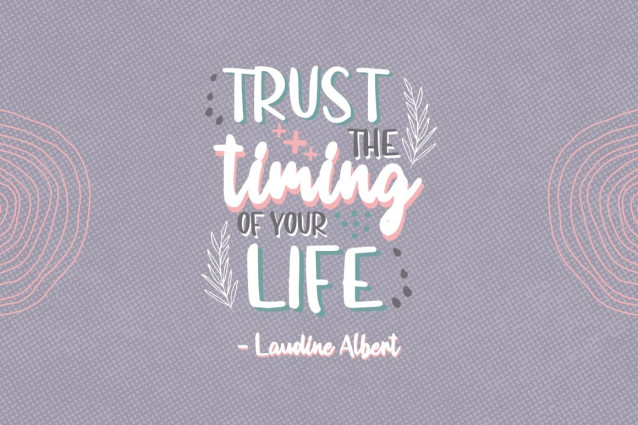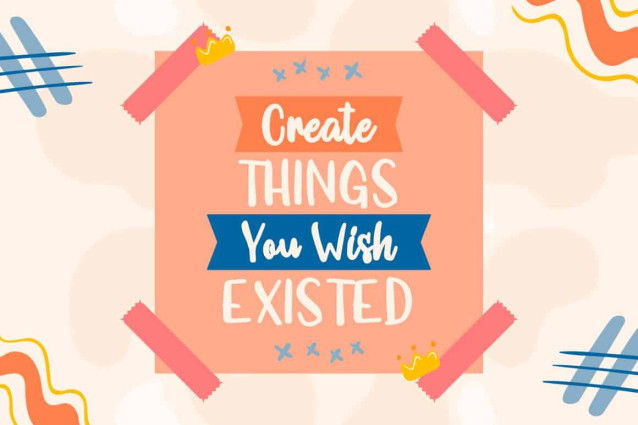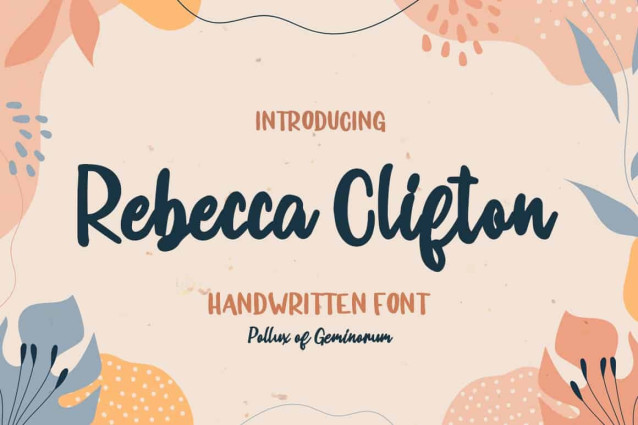
Rebecca Clifton Font
Rebecca Clifton Font is a beautiful and light handwritten font with a unique feel and a stunning impact. It will add a luxury spark to any design project that you wish to create!Perfect for greetings card, logo design, quotes design, packaging, wedding invitation, poster, etc.